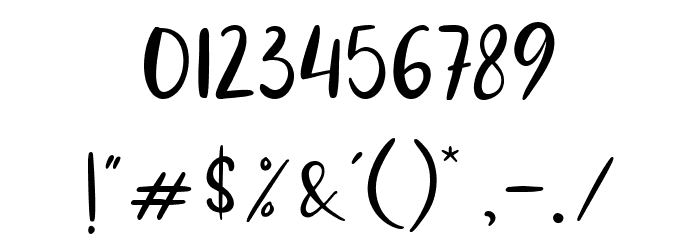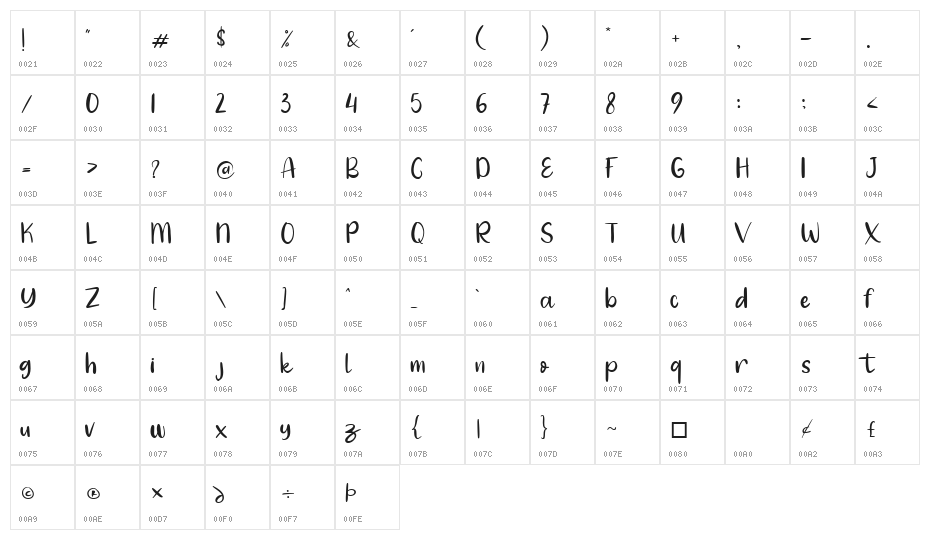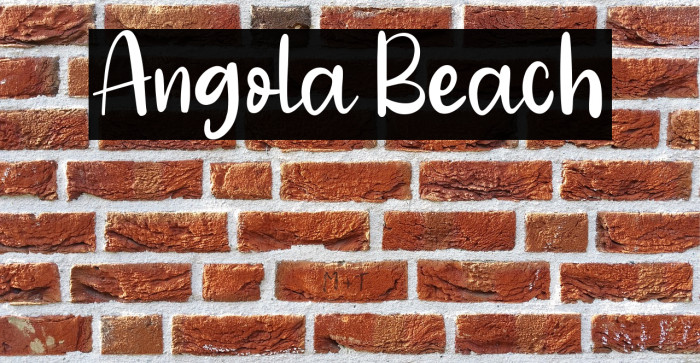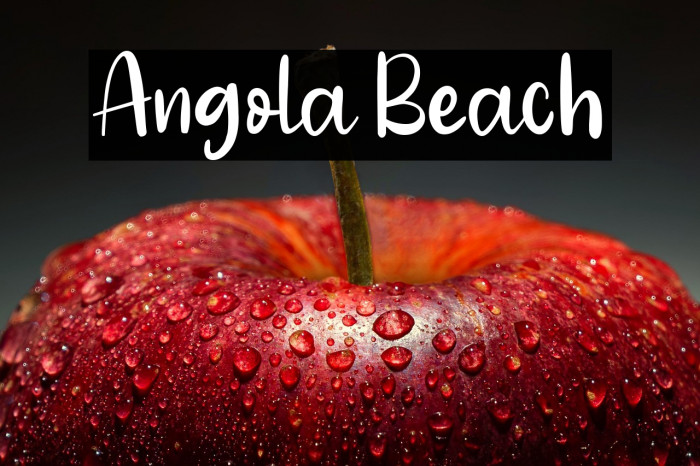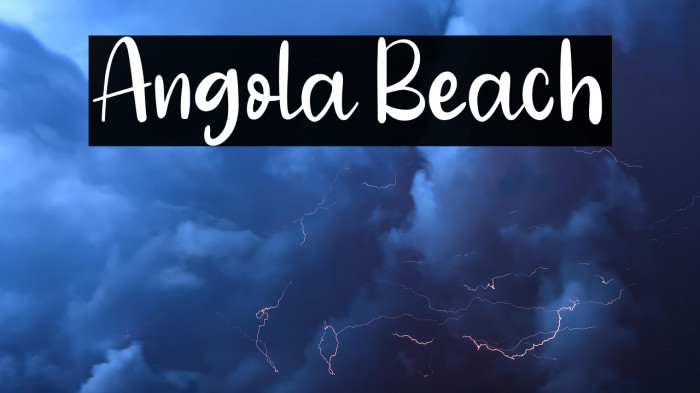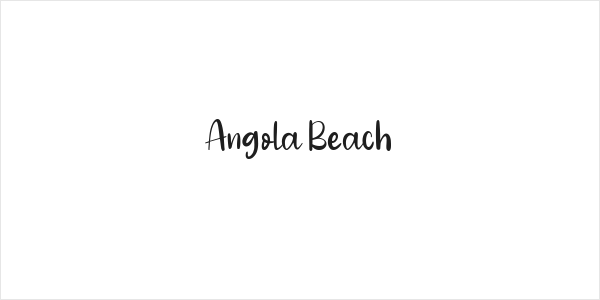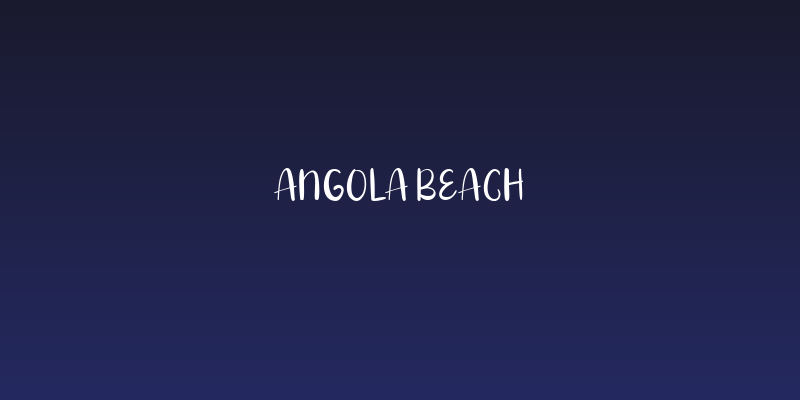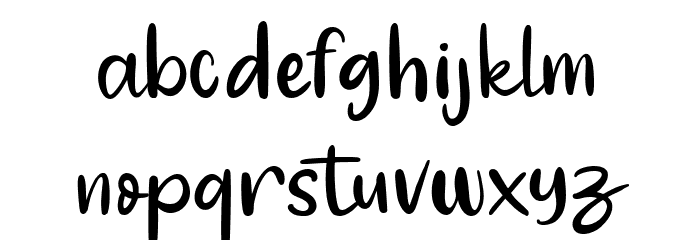
Angola Beach Font
Angola Beach Description
This font features a playful and casual handwritten style, characterized by its smooth, flowing curves and slightly irregular letterforms. The uppercase letters are bold and rounded, with a friendly and approachable appearance. The lowercase letters maintain a consistent style, complementing the uppercase with their fluid and dynamic shapes. The numerals are clear and easy to read, matching the overall aesthetic of the font. Special characters are included, adding versatility for various design needs. The font's informal and relaxed vibe makes it suitable for projects that require a personal touch.
| Use Case | Logos, Headlines, Social media graphics |
| Proposed Projects | Ideal for greeting cards, invitations, personal branding, and social media graphics. |